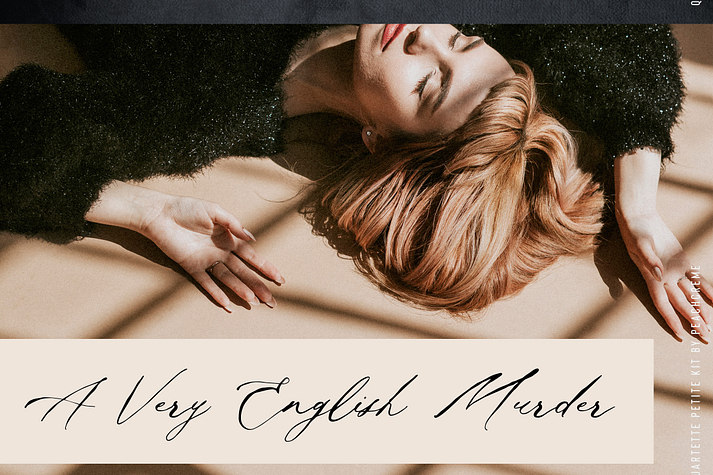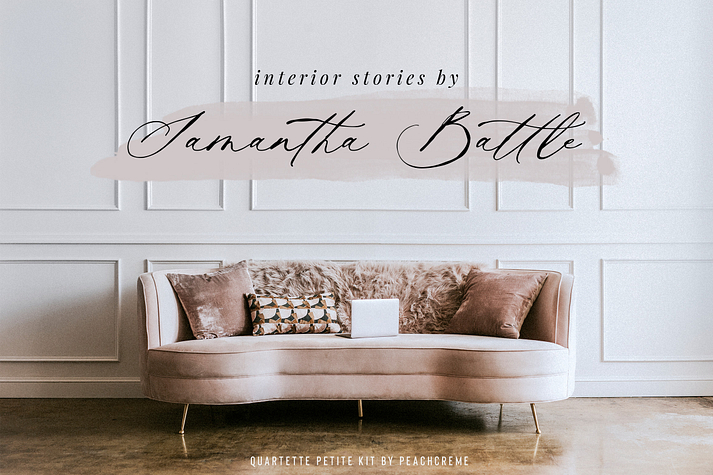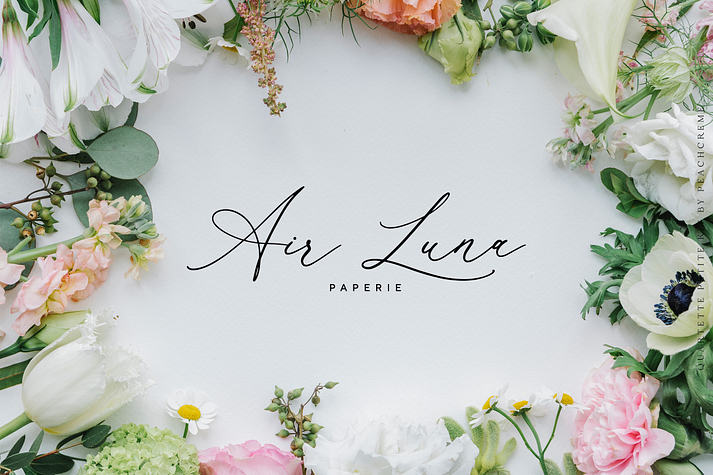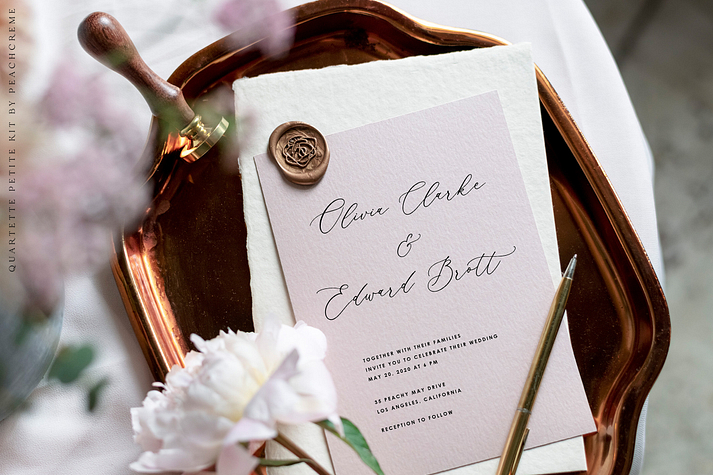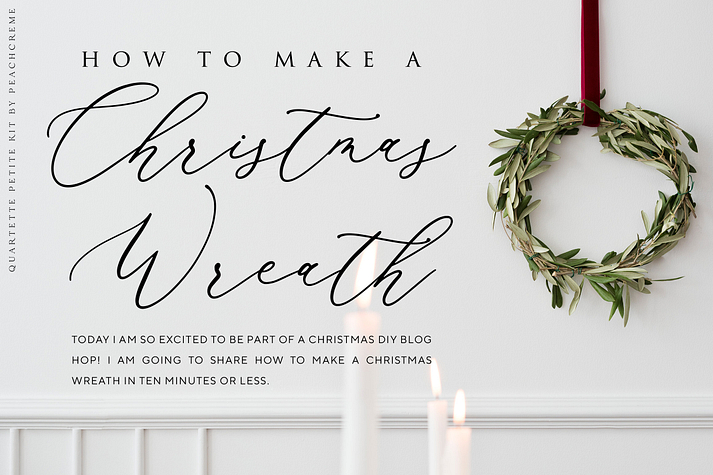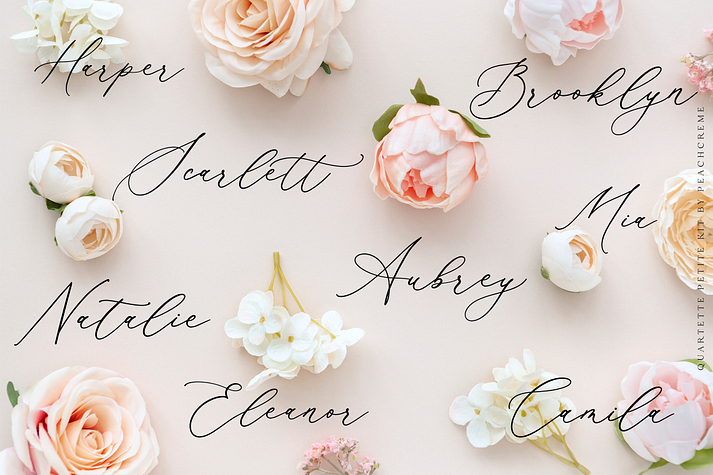
Modernista
Modernista is a script font family. This typeface has four styles and was published by PeachCréme.
Voilà! Presenting our new petite kit, including 4 different style script fonts.
1. Modernista
boho, moody, rustic
2. Haute Atelic
stylish, sleek, chic
3. Elegantessa
elegant, airy, refind
4. Sugar Babe
trendy-shmendy
Following international symbols support: ÀÁÂÃÄÅĄÇĆÈÉÊËĘÌÍÎÏÐÑŃŁÒÓÔÕÖØÙÚÛÜŚŠŸÝŹŻŽßàáâãäåçèéêëìíîïðñòóôõöøùúûüýÿąćęłńśšźżž
Foundry PeachCréme